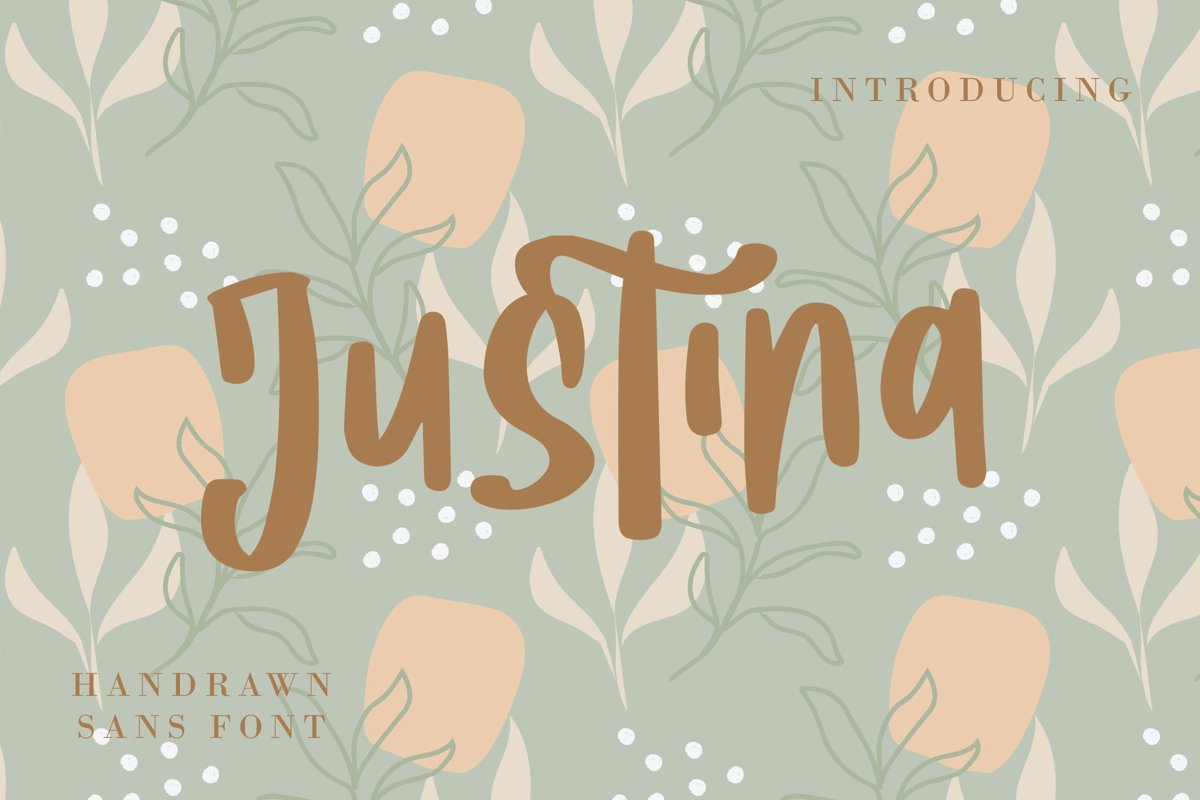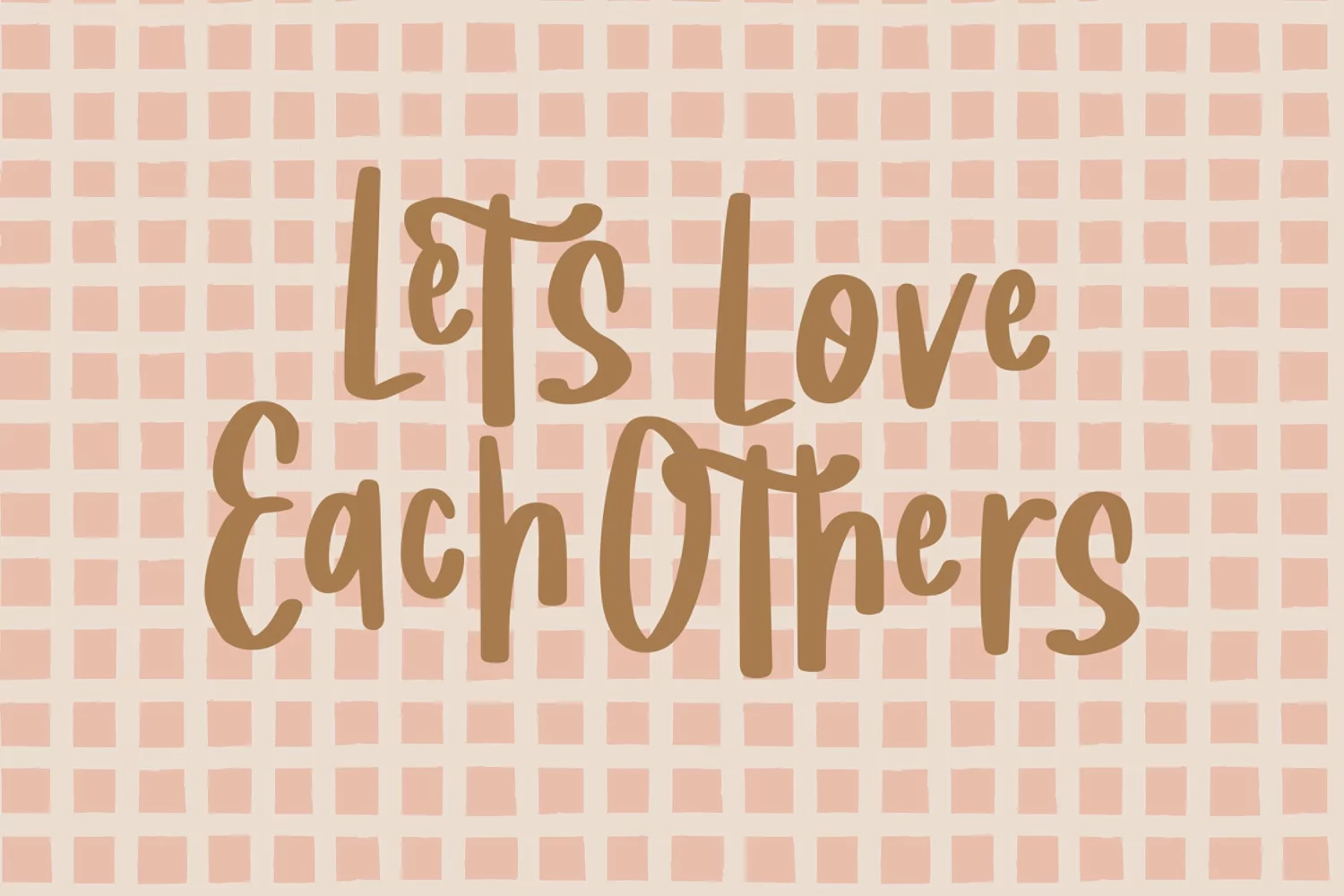
Justina - Handwritten Fonts that contain lowercase, uppercase, symbol, and also support multi language. There’s a lot ligatures in this font. This Font also comes with ligatures, alternates and many more. this font suitable for fashion, branding, catalog and other design what you want.